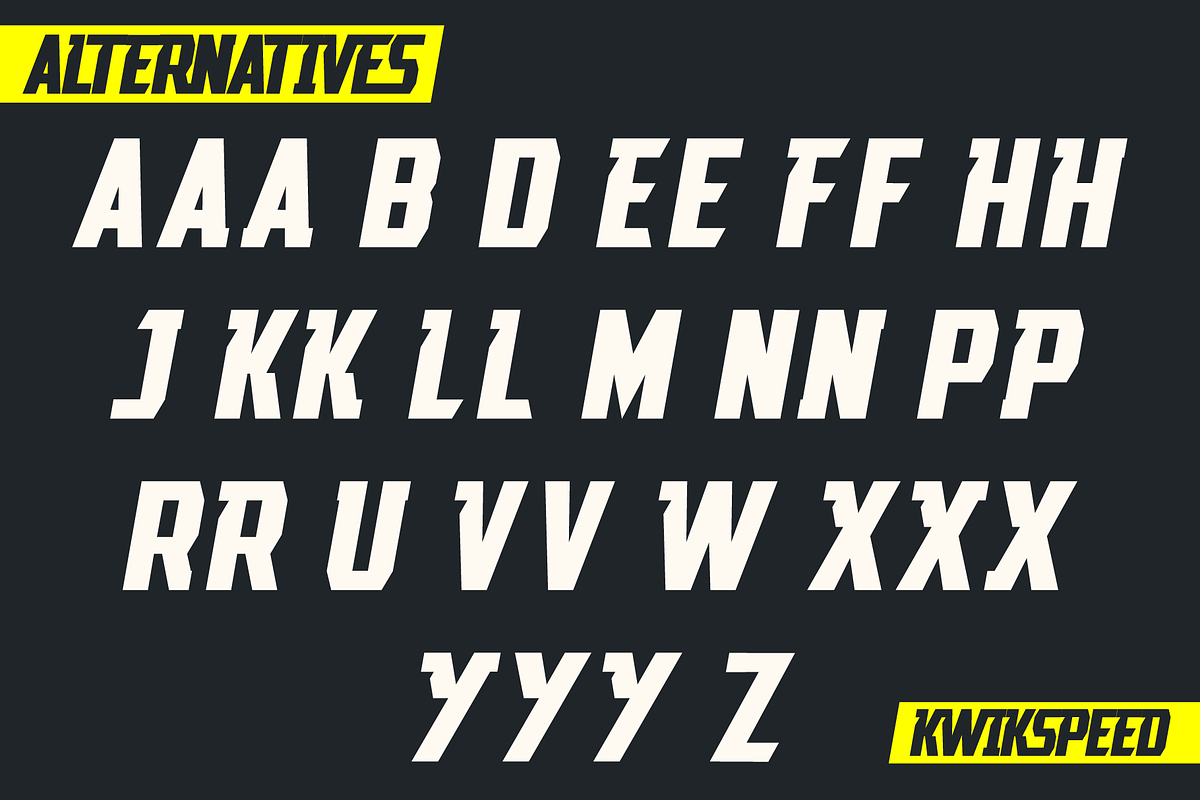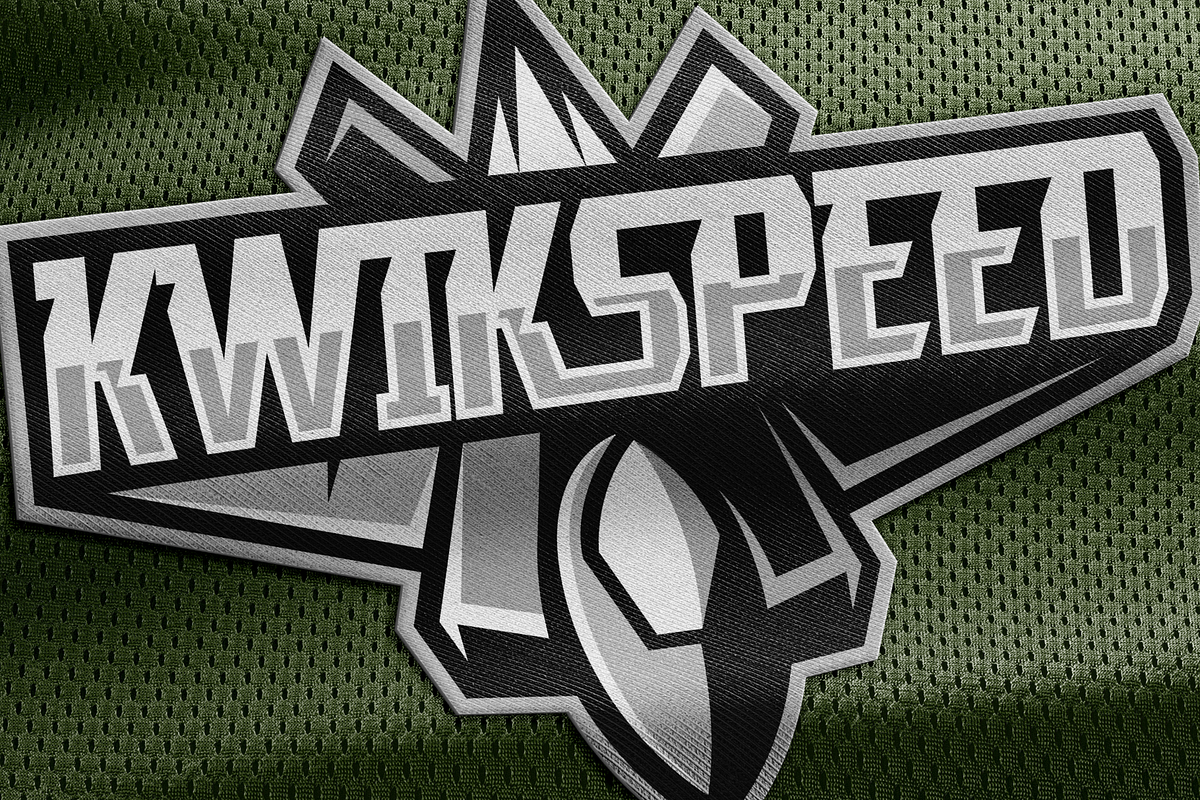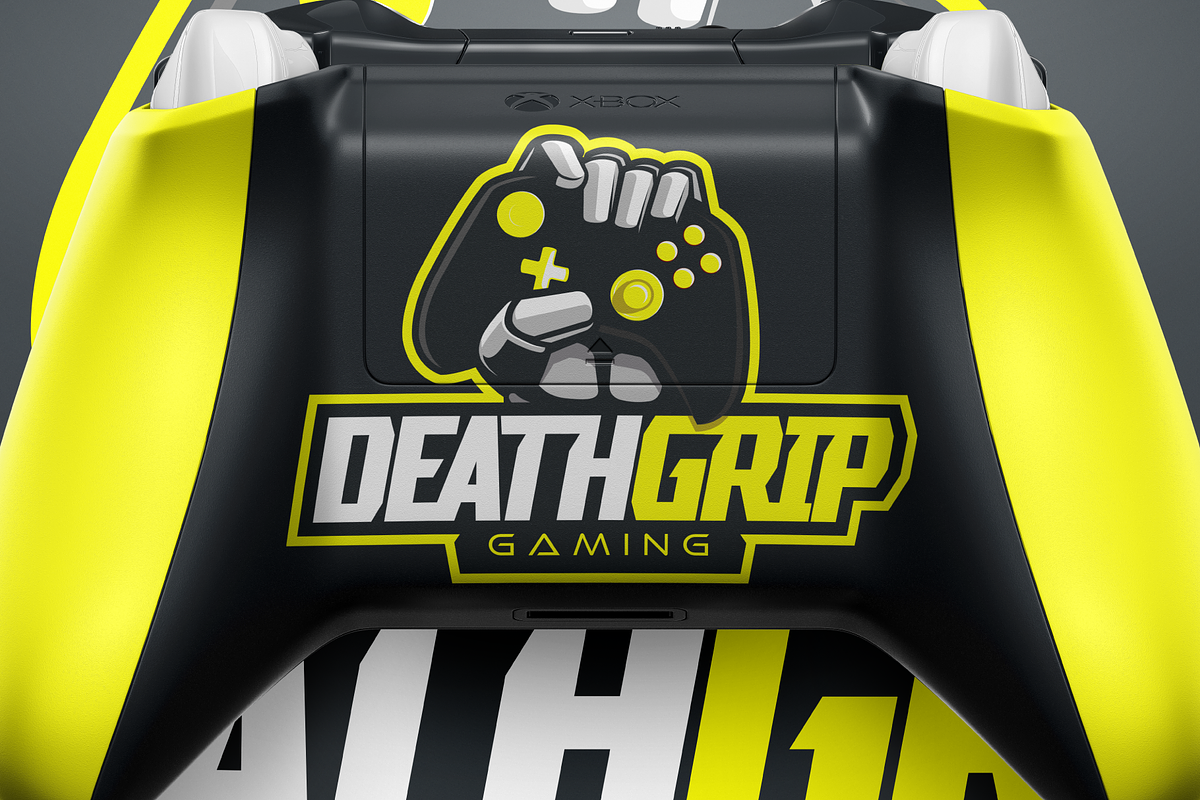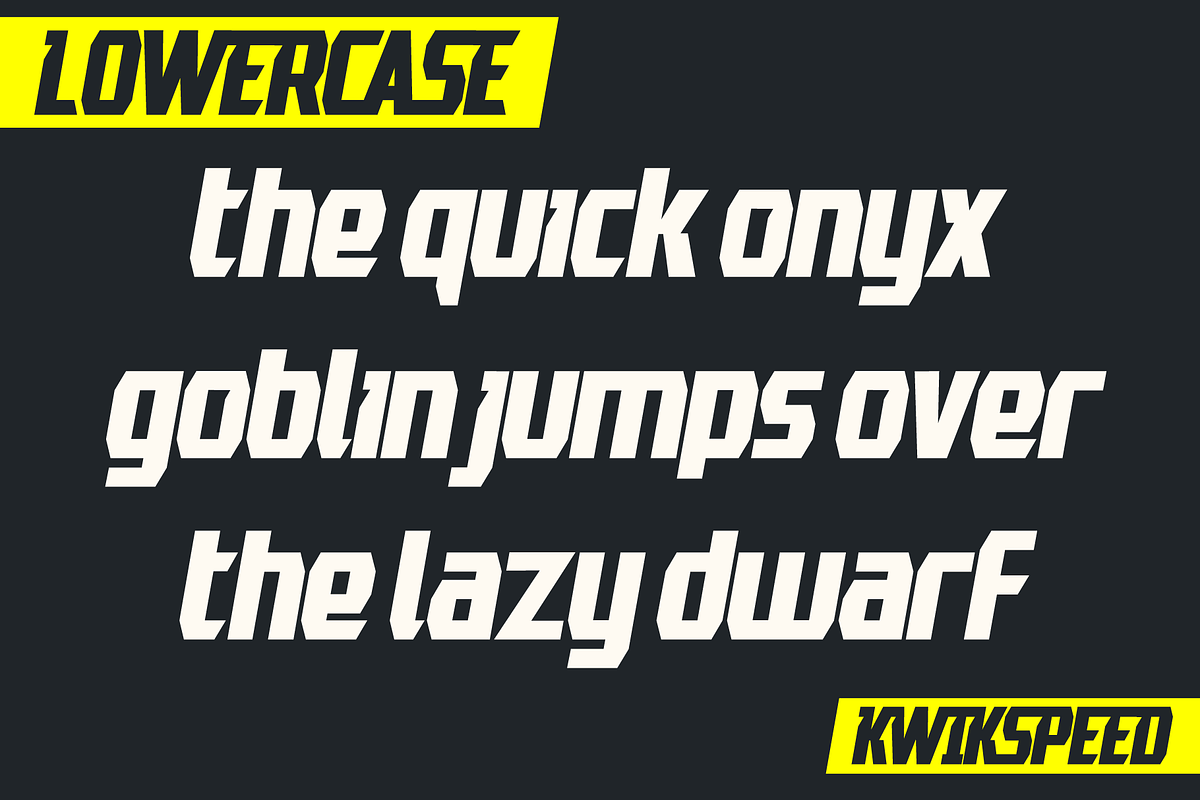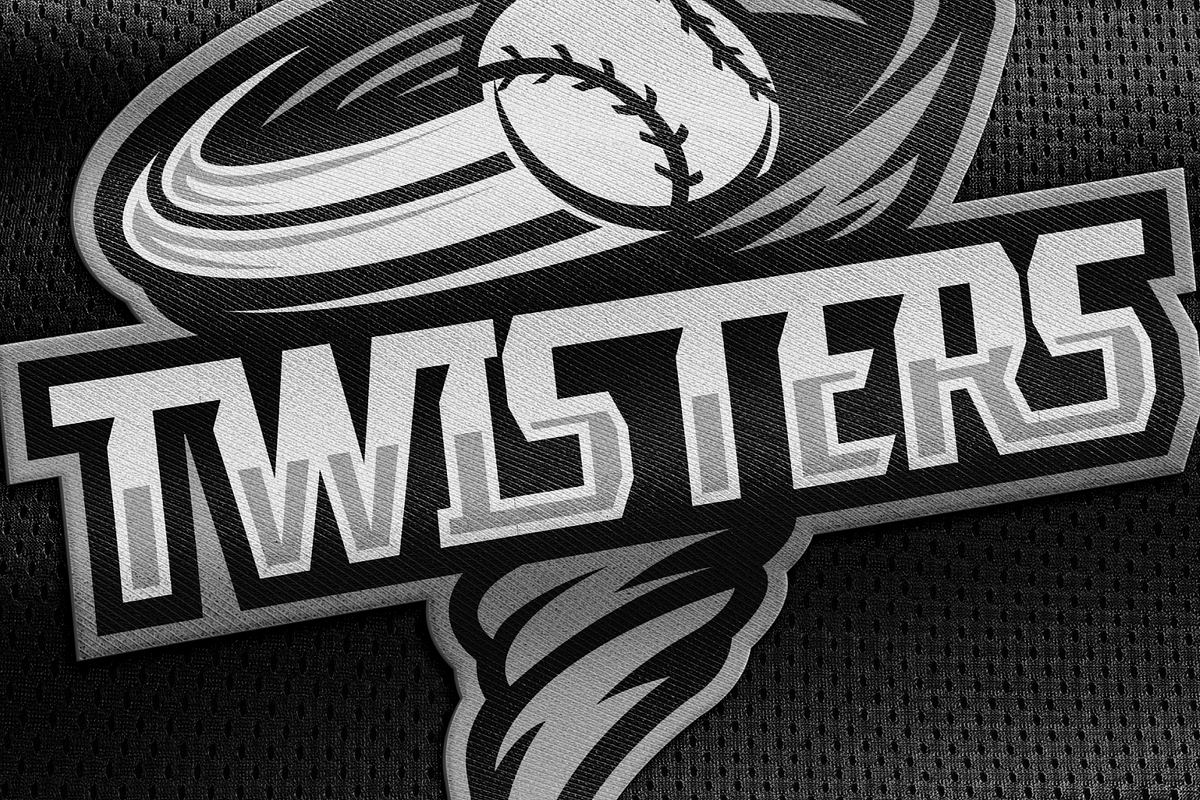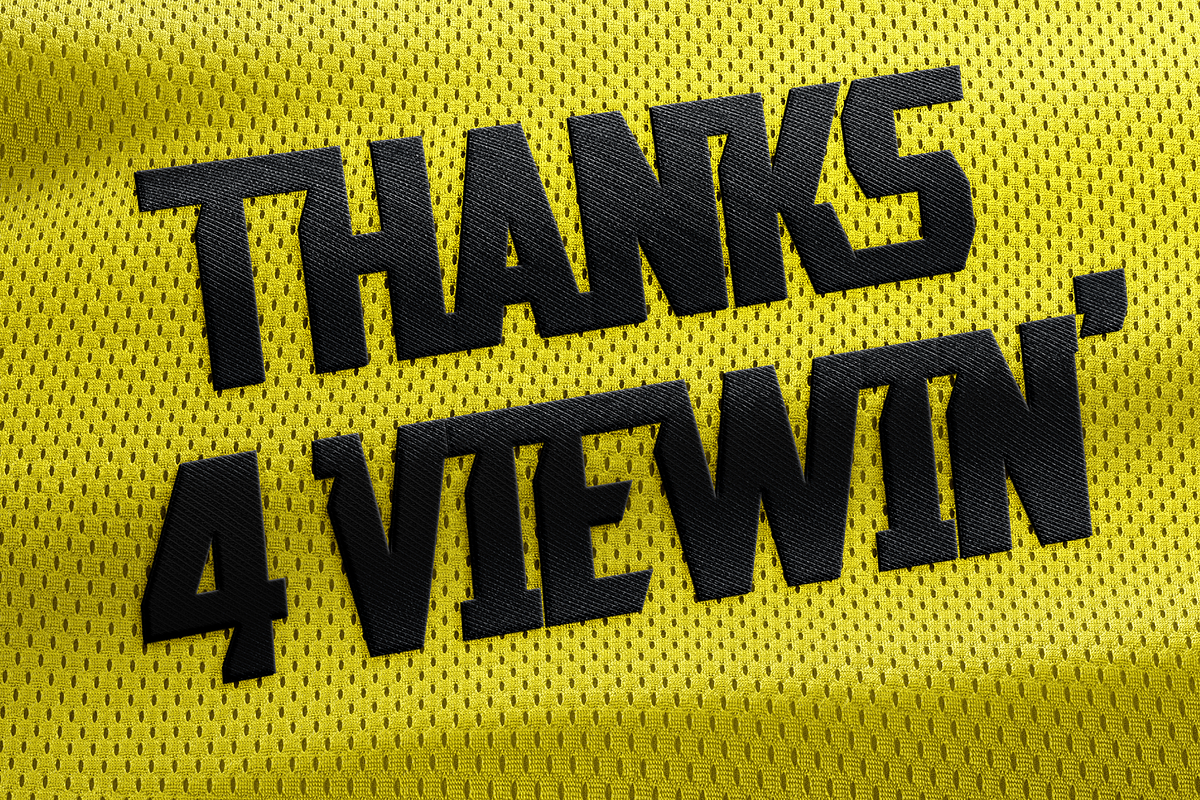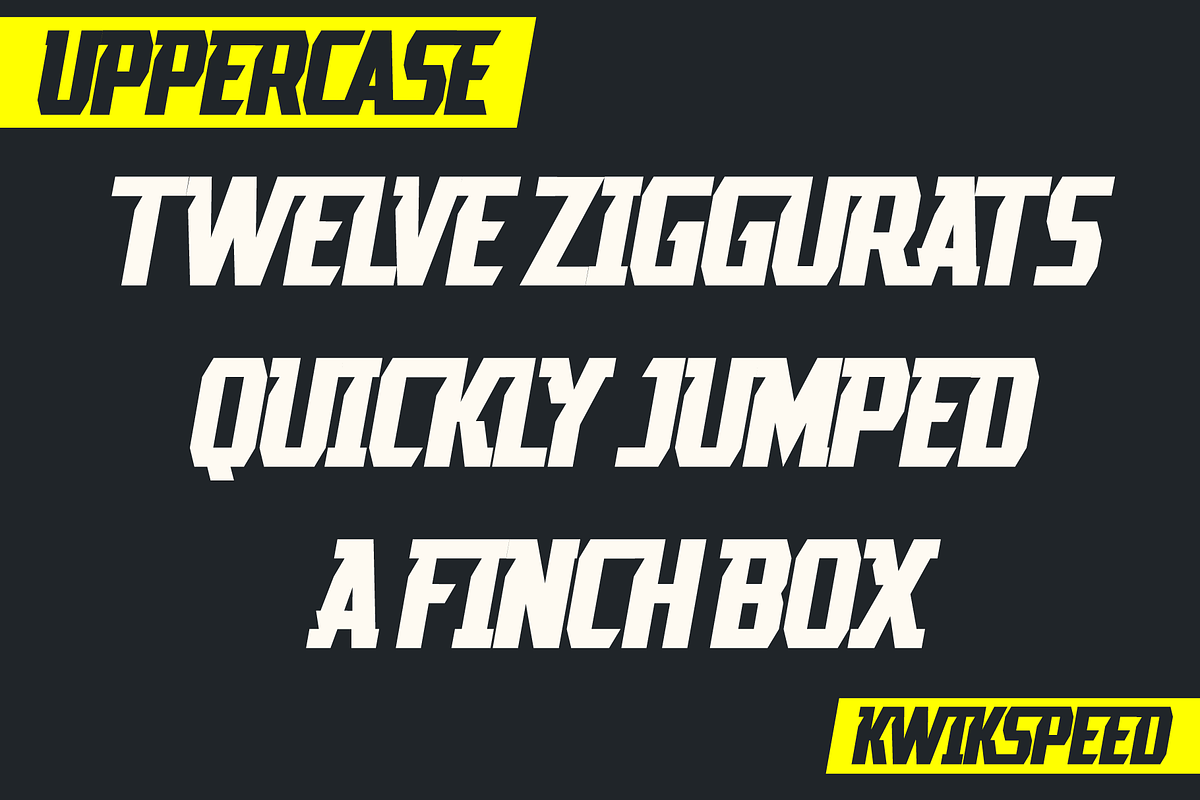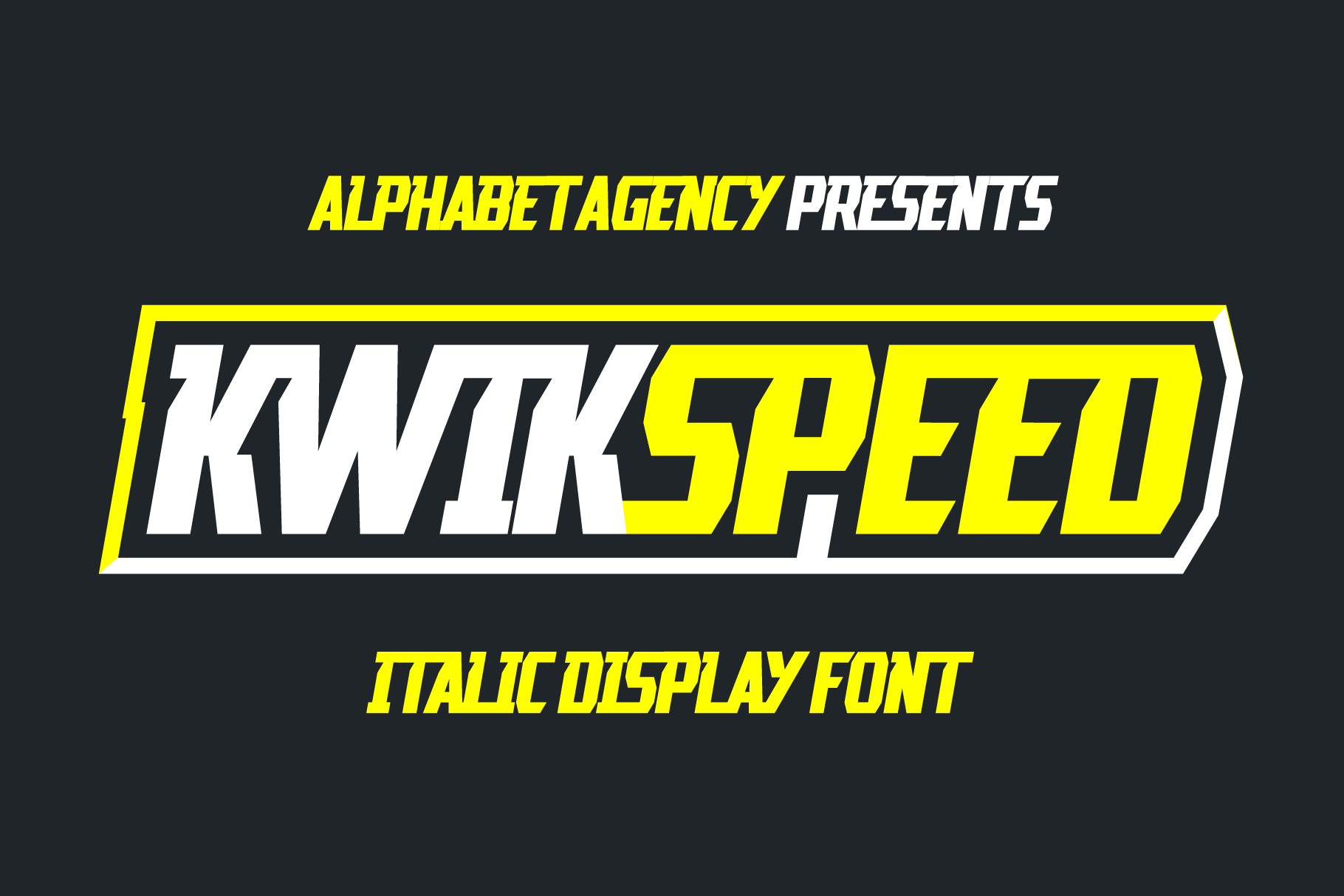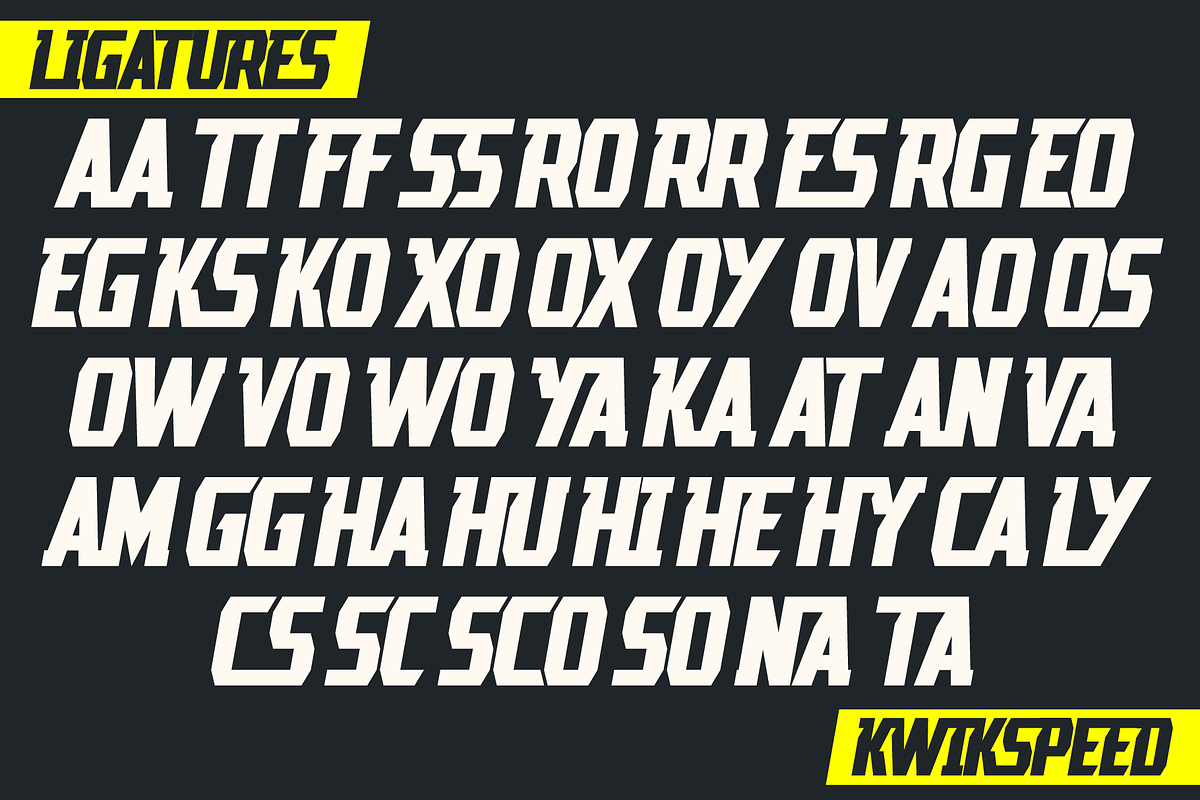
Kwikspeed Italic Display Font
Kwikspeed is a italic display font that was developed from typography used in e sport themed design work. The font is designed so that the capital letters link together in a cool way. The font includes lots of alternative capital letters to provide many different options allowing you more versatility. The same goes for the ligatures - they also present cool ways of displaying letter combinations.
The font includes uppercase, lowercase, numbers, alternative capitals, discretionary ligatures, basic Latin international and punctuation characters.